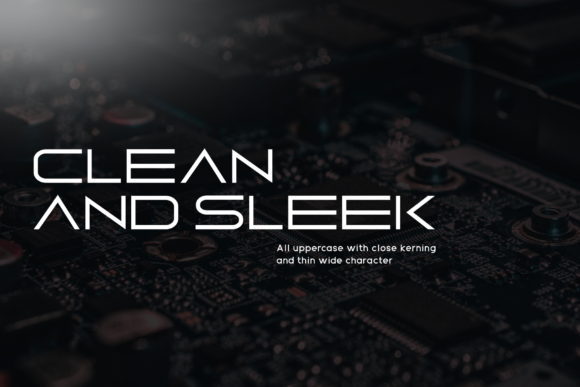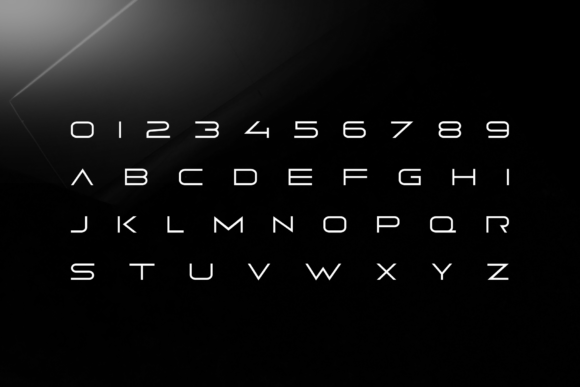
Introducing Capacitor Font: The Ultimate Sans Serif for Creative Projects
Are you tired of using the same old fonts for your design projects? Look no further than Capacitor Font, a minimal and neat sans serif font that’s perfect for adding a touch of modernity to your creative ideas. With its clean lines and versatile style, Capacitor Font can easily be matched to an incredibly large set of projects, making it a must-have for designers and crafters alike.
What is Capacitor Font?
Capacitor Font is a sans serif font that’s designed to be both simple and sophisticated. Its minimalist approach makes it perfect for use in a wide range of projects, from digital designs to print materials. The font’s clean lines and lack of embellishments give it a modern and sleek look that’s sure to grab attention.
Key Features of Capacitor Font
• Minimalist Design: Capacitor Font features a simple and minimalist design that’s perfect for modern designs.
• Sans Serif Style: The font’s sans serif style makes it easy to read and versatile for use in a wide range of projects.
• Clean Lines: The font’s clean lines give it a sleek and modern look that’s sure to impress.
• Highly Versatile: Capacitor Font can be used in a wide range of projects, from digital designs to print materials.
Why Use Capacitor Font?
So why should you use Capacitor Font for your design projects? Here are just a few reasons:
• Adds a Touch of Modernity: Capacitor Font’s modern design adds a touch of sophistication to any project.
• Improves Readability: The font’s clean lines and sans serif style make it easy to read, even at small sizes.
• Increases Versatility: Capacitor Font can be used in a wide range of projects, making it a great addition to any designer’s toolkit.
• Stand Out from the Crowd: With its unique design, Capacitor Font is sure to make your projects stand out from the crowd.
How to Use Capacitor Font
Using Capacitor Font is easy. Here are a few tips to get you started:
• Pair it with Other Fonts: Capacitor Font pairs well with other sans serif fonts, making it easy to create unique and interesting typography.
• Use it for Headings and Body Text: The font’s clean lines and sans serif style make it perfect for use in both headings and body text.
• Experiment with Different Sizes: Capacitor Font looks great at a wide range of sizes, from small body text to large headings.
Capacitor Font in Design and Crafting
Capacitor Font is perfect for use in a wide range of design and crafting projects, including:
• Graphic Design: Use Capacitor Font to add a touch of modernity to your graphic designs.
• Web Design: The font’s clean lines and sans serif style make it perfect for use in web design.
• Printmaking: Capacitor Font is perfect for use in printmaking projects, such as business cards and brochures.
• Crafting: Use Capacitor Font to add a touch of personality to your crafting projects, such as handmade cards and gift tags.
In conclusion, Capacitor Font is a versatile and modern sans serif font that’s perfect for adding a touch of sophistication to your design projects. With its clean lines and minimalist design, Capacitor Font is sure to make your projects stand out from the crowd. So why not give it a try and see how it can elevate your designs?